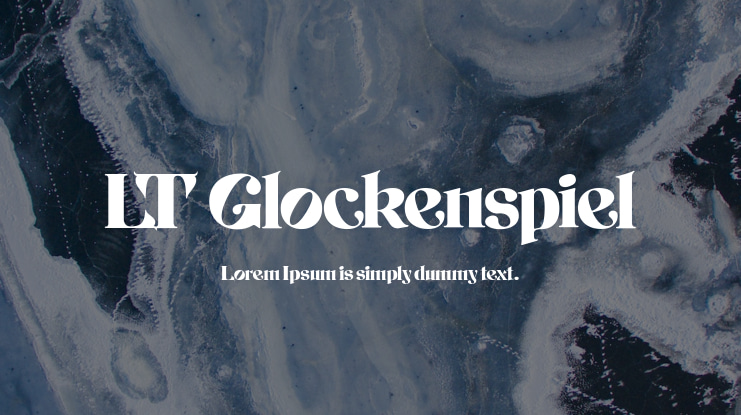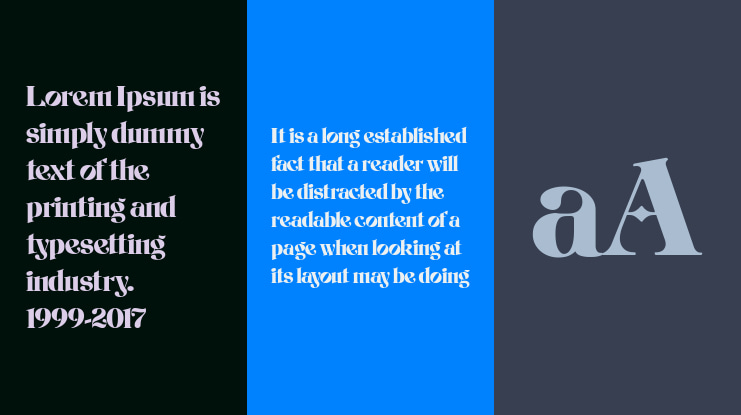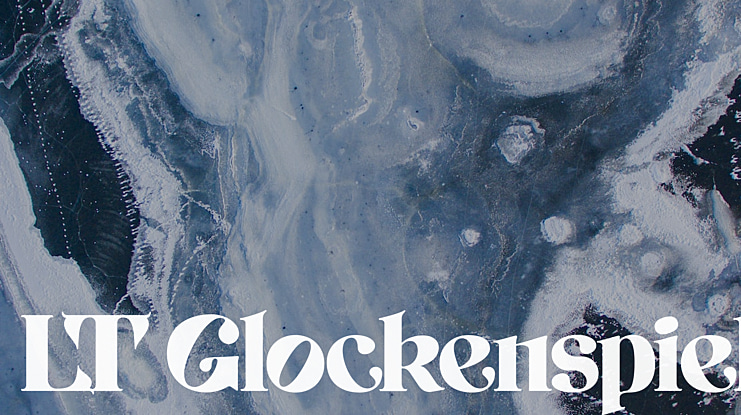
LT Glockenspiel Font
Daniel Lyons
"Glockenspiel" is a typeface that reflects on the art nouveau period in a unique magnitude, as well as the aesthetics of the 19th century. The typeface also takes cues from the works of Herman Ihlenburg, Schelter & Giesecke, etc.
LT Glockenspiel font preview